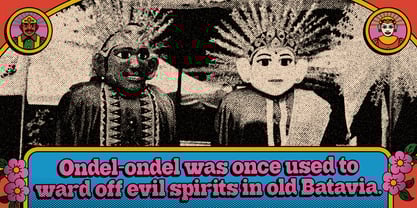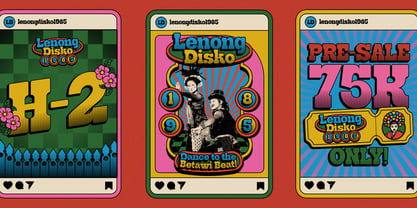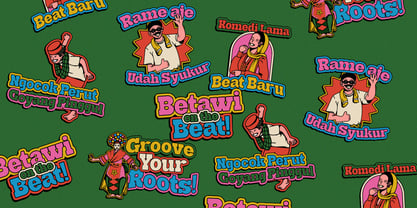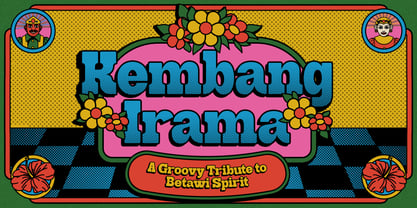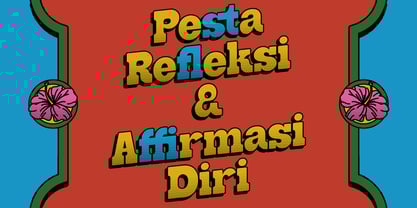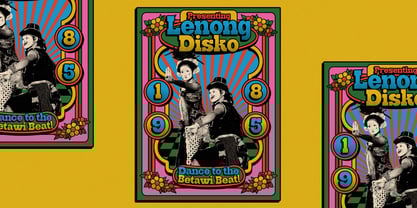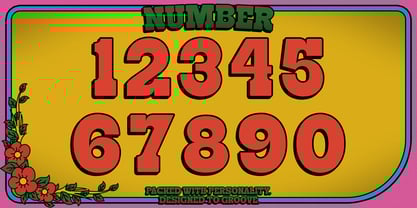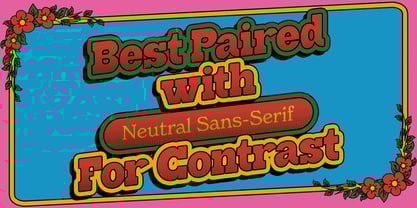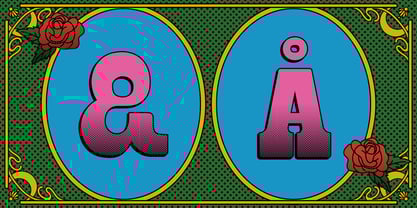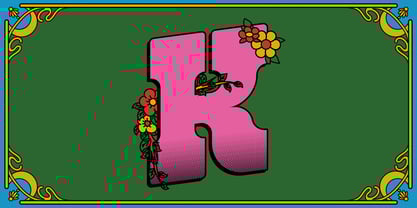
Kembang Irama
by Inviline
The Kembang Irama Font Family was designed by Virgiawan Listanto and published by Inviline. Kembang Irama contains 1 styles. More about this family
Kembang Irama is a groovy tribute to the vibrant spirit of Betawi culture, blending retro pop-art aesthetics with bold, bouncy curves and colorful energy. Inspired by traditional patterns, comic books, and local charm, this font brings a nostalgic yet refreshing personality to your design. It's perfect for poster art, event branding, merch, packaging, and eye-catching headlines that demand attention. With its halftone texture and playful shapes, Kembang Irama adds rhythm and soul to any visual storytelling. Whether you're crafting cultural campaigns or funky vintage projects, this typeface is designed to shine with loud pride and joyful vibes.
Designers: Virgiawan Listanto
Foundry: Inviline